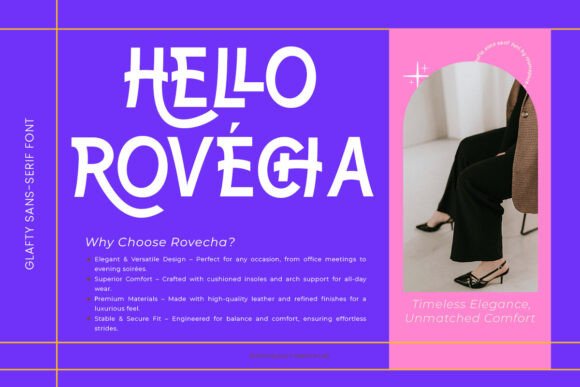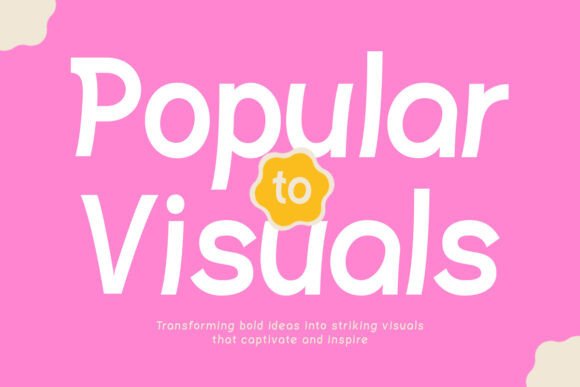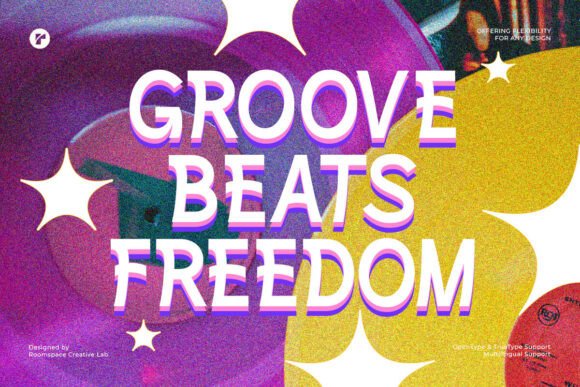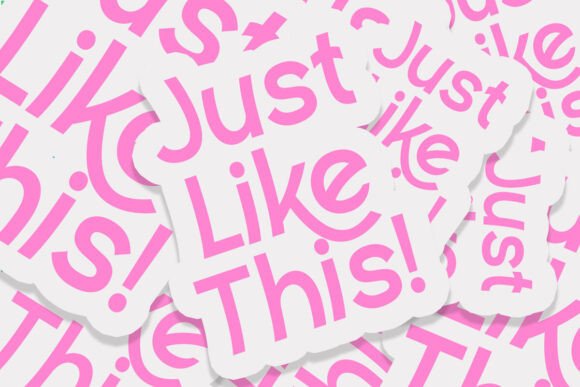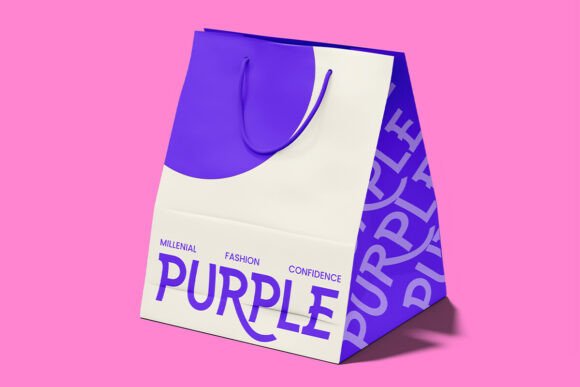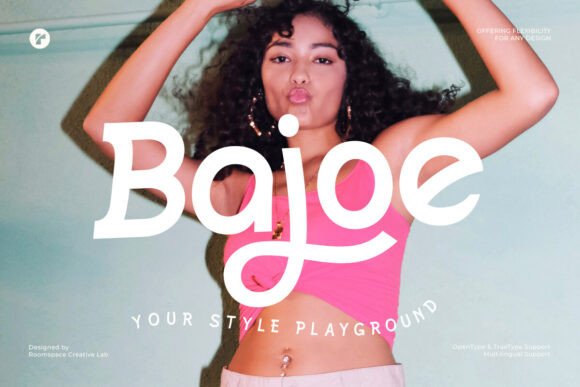
The Perfect Font for a Brighter Design
You know that moment when you’re brainstorming a new project and you just can’t seem to find the right font to match your creative vision? That’s where the magic happens, and you stumble upon a font that makes everything click into place. For designers looking to add a playful twist to their projects, there’s a new kid on the block – the Glafty Font. This modern sans-serif display decorative font is designed to bring joy and personality to your creative endeavors.
With its bold curves and cheerful vibe, the Glafty Font is the perfect addition to any project that needs a fresh and youthful touch. Whether you’re creating logos, social media graphics, or greeting cards, this font has got you covered. Its smooth, rounded letterforms and multilingual support make it a valuable tool for designers looking to create unique and engaging designs that reach a global audience.
Glafty Font Key Features
- Font Size: The font is available in 6 different weights, ranging from Light to Extra Bold, each with its unique characteristics and nuances.
- Unique Characteristics: The font features a unique blend of geometric and organic elements, giving it a distinctive and modern look that sets it apart from other fonts.
- Language Support: Glafty Font supports a wide range of languages, including Latin, Cyrillic, and Greek alphabets, making it a versatile choice for international applications.
Glafty Font Review
I’ve had the chance to work with the Glafty Font, and overall, I’d say it’s a decent addition to any designer’s toolkit. Here are some of the things that stood out to me:
- ✨ The font has a unique, modern aesthetic that can add a touch of personality to designs. The bold weights are particularly striking.
- ✨ The font’s high legibility makes it suitable for body text, and the clear lines help with readability.
However, there are some limitations that I think are worth mentioning:
- ⚠️ The font’s character set is somewhat limited, which may cause issues for designers working with non-Latin scripts or special characters.
- ⚠️ The font’s kerning can be a bit off in certain combinations, which may affect the overall visual flow of a design.
Overall, I’d say the Glafty Font is a solid choice for designers looking for a modern, stylish font. While it may not be perfect, its unique aesthetic and high legibility make it a great addition to any design project.
Tips for Getting the Most Out of Glafty Font
Use Glafty Font for headings and titles to add a touch of elegance and sophistication to your designs.
Pair Glafty Font with other fonts to create a unique and eye-catching typography combination.
Glafty Font is perfect for:
Business cards and marketing materials
Blog posts and articles
Any design project that requires a touch of elegance and sophistication